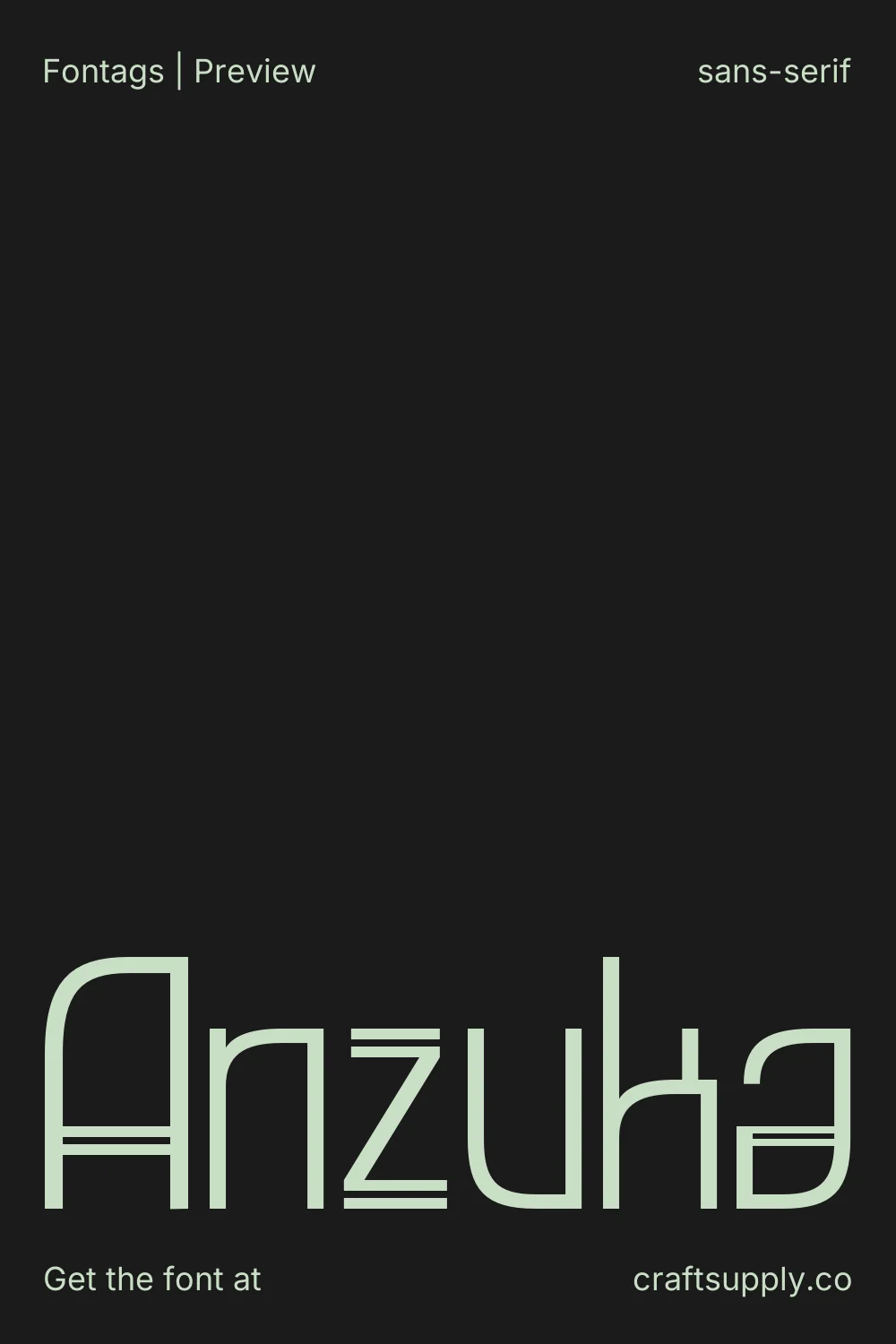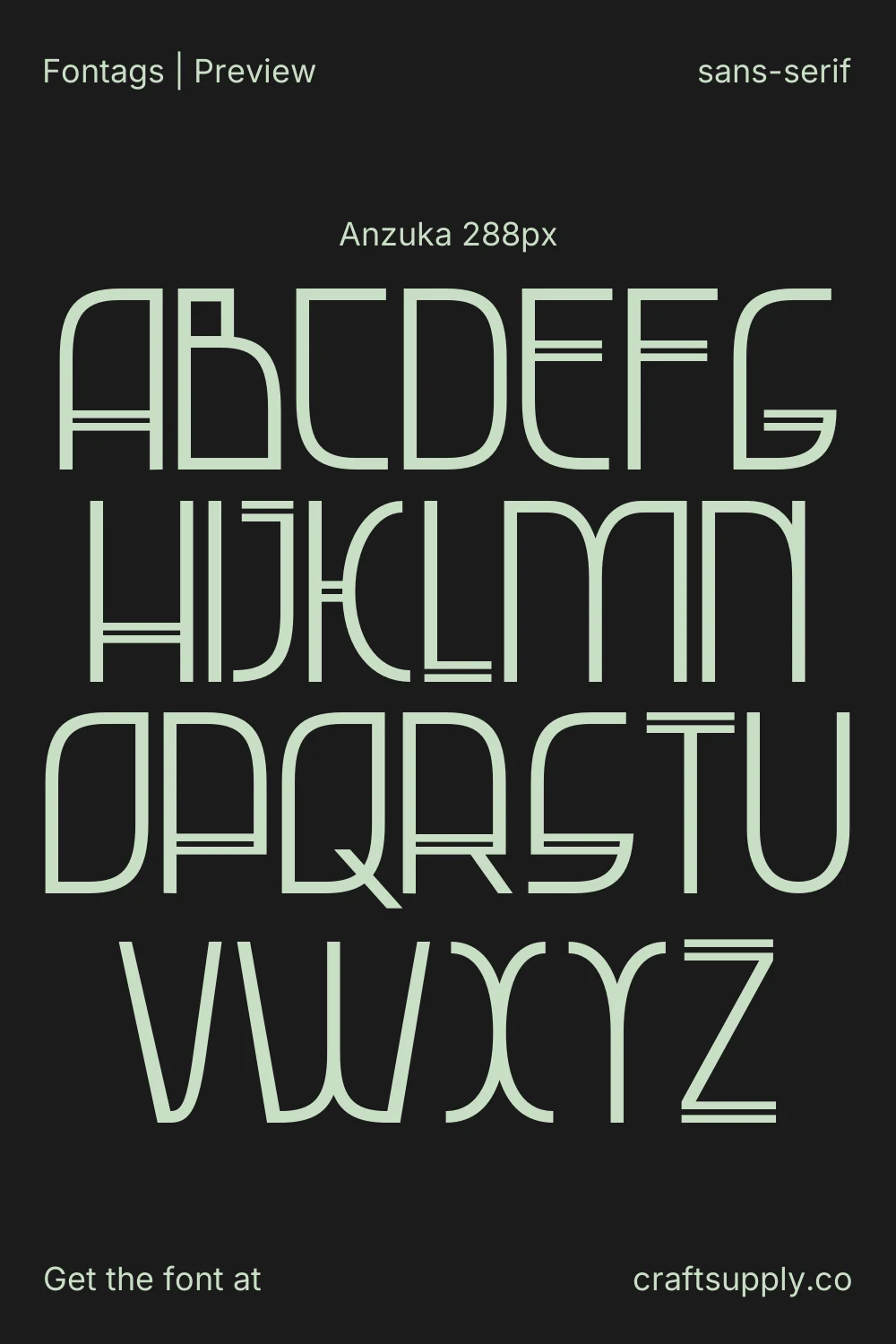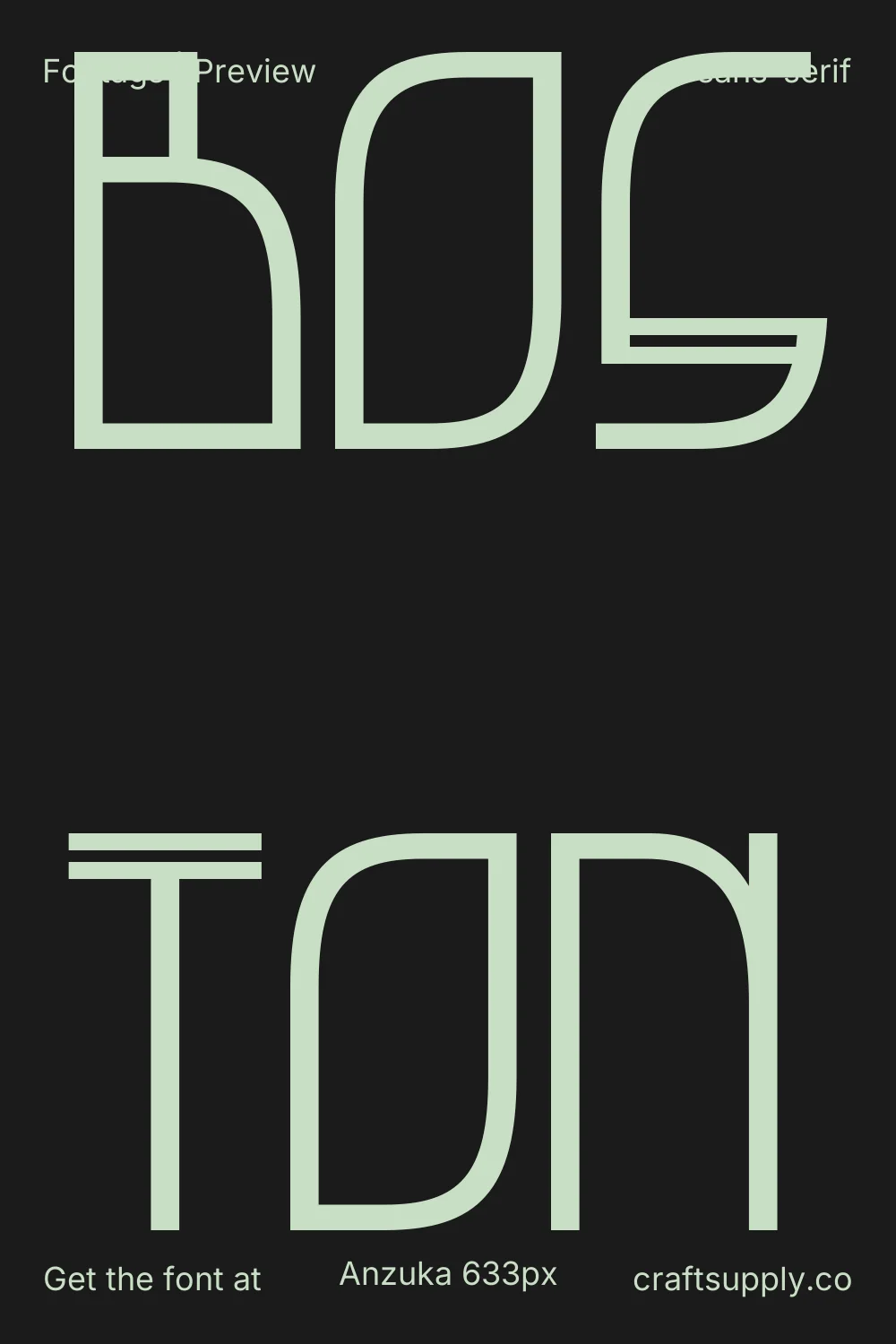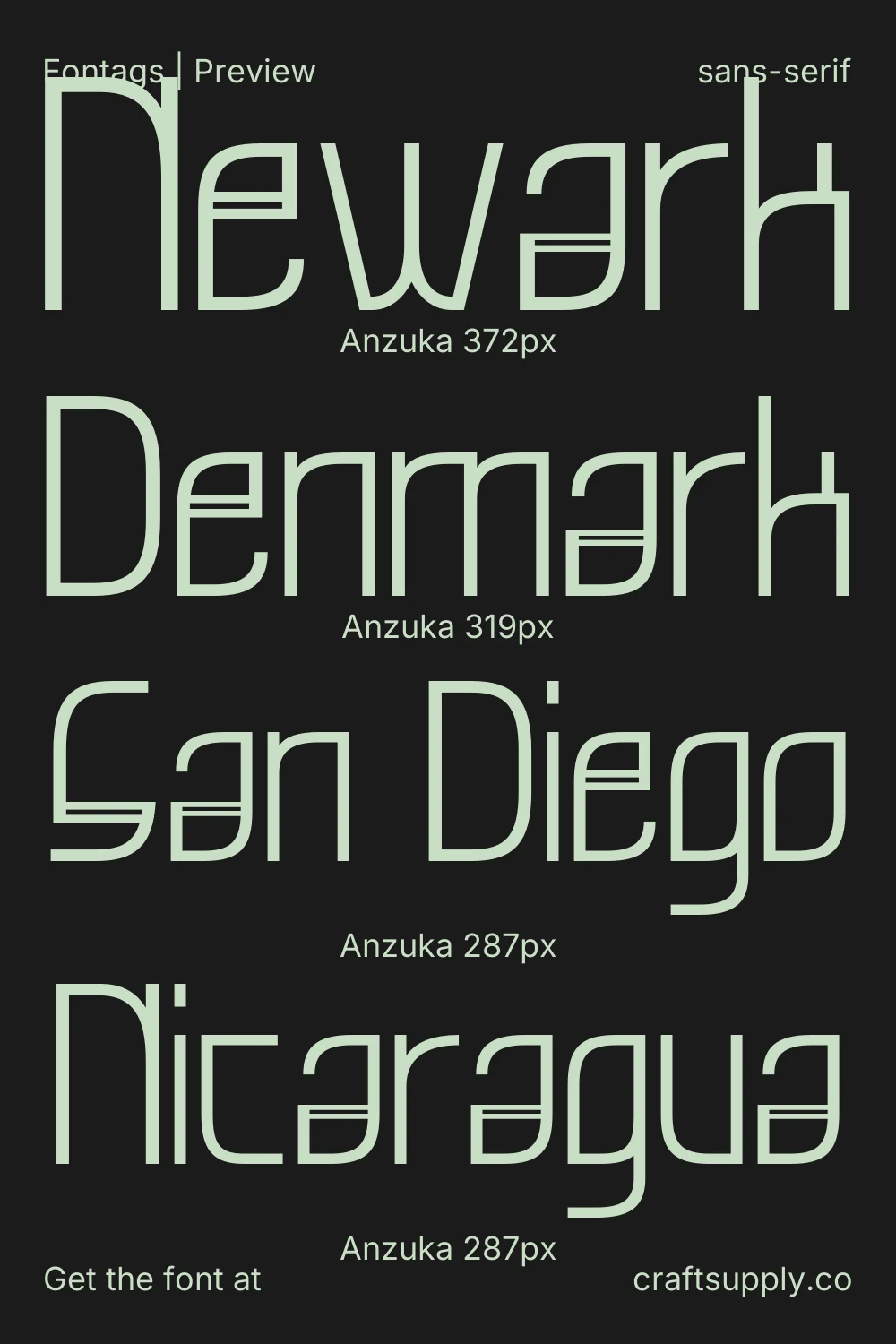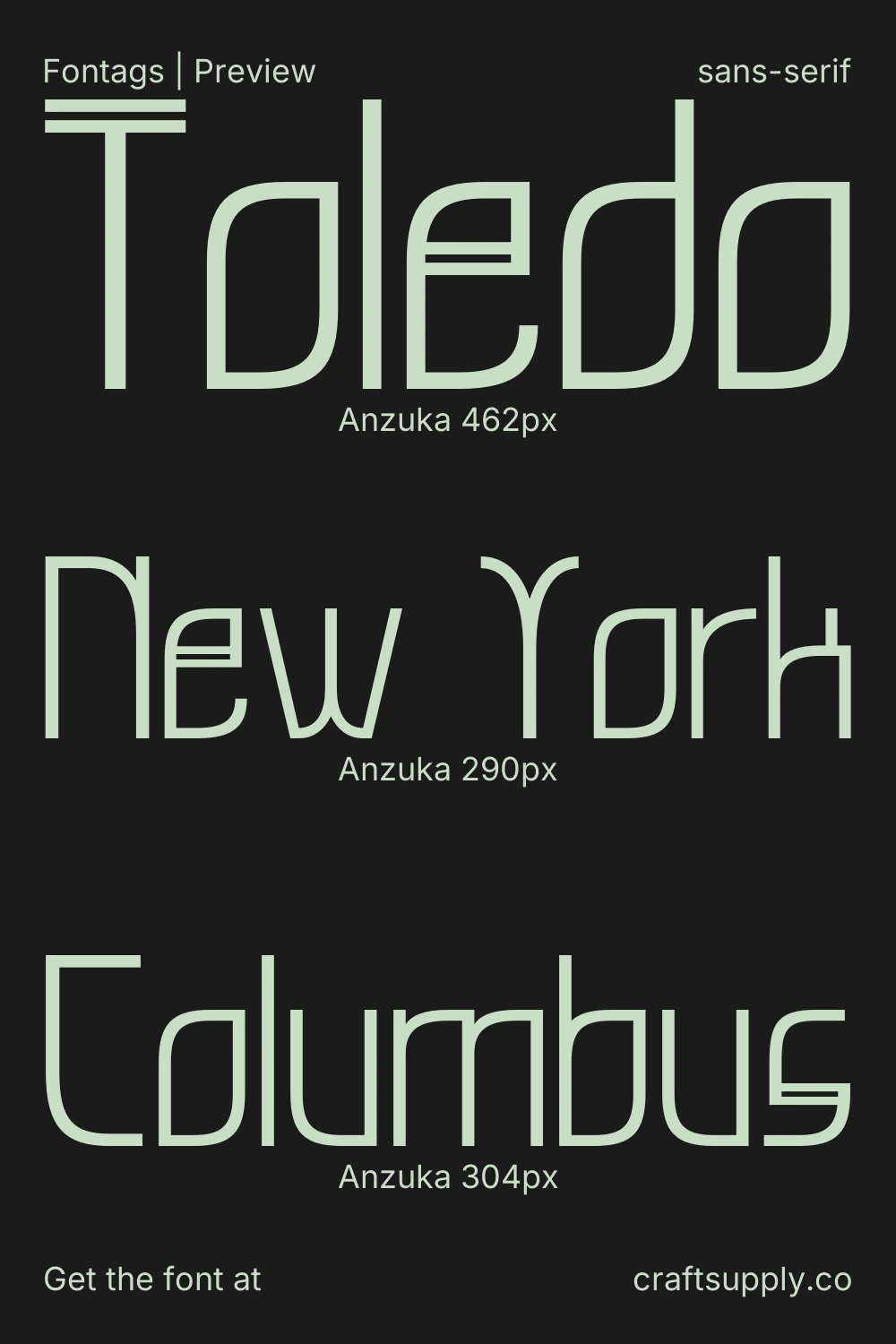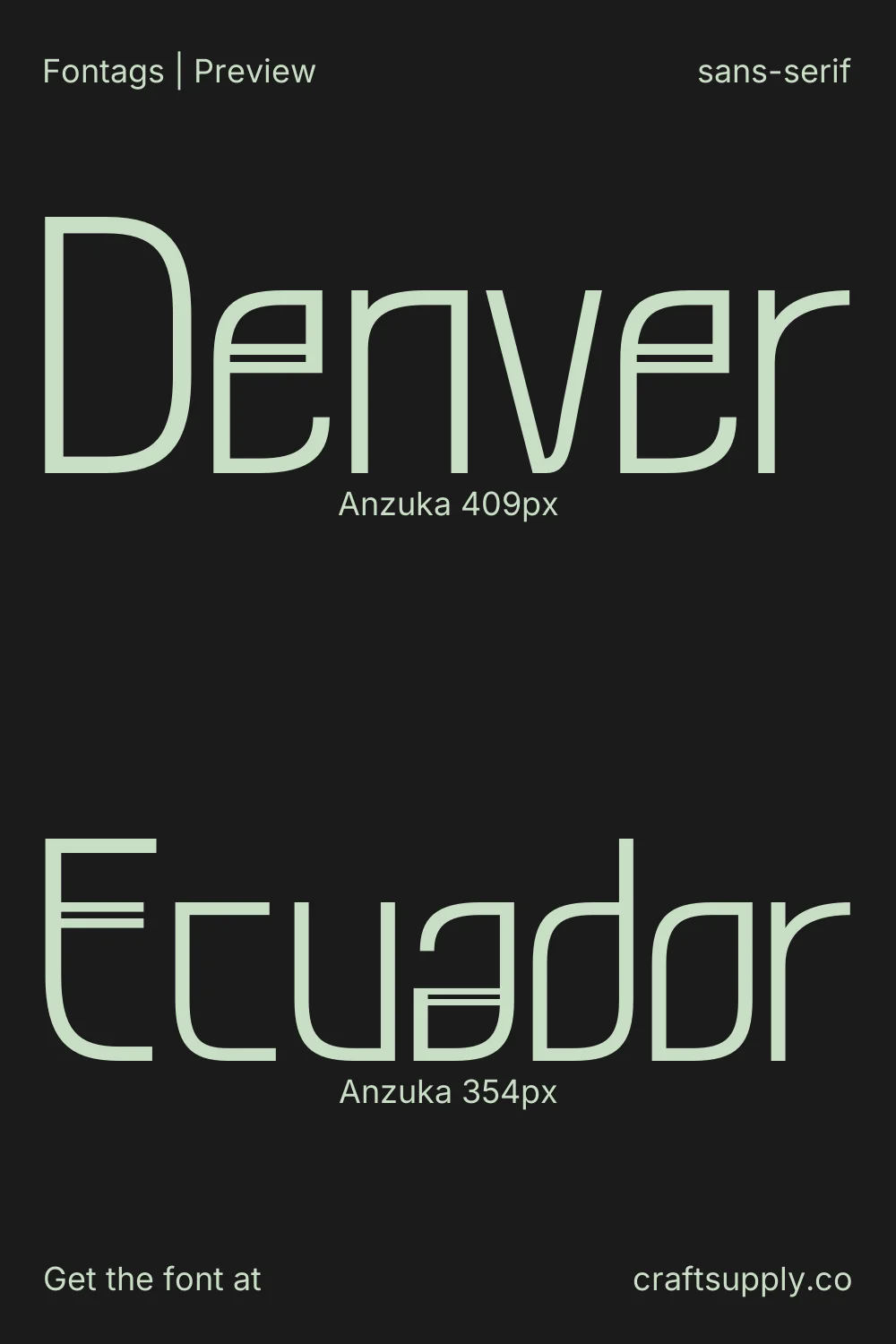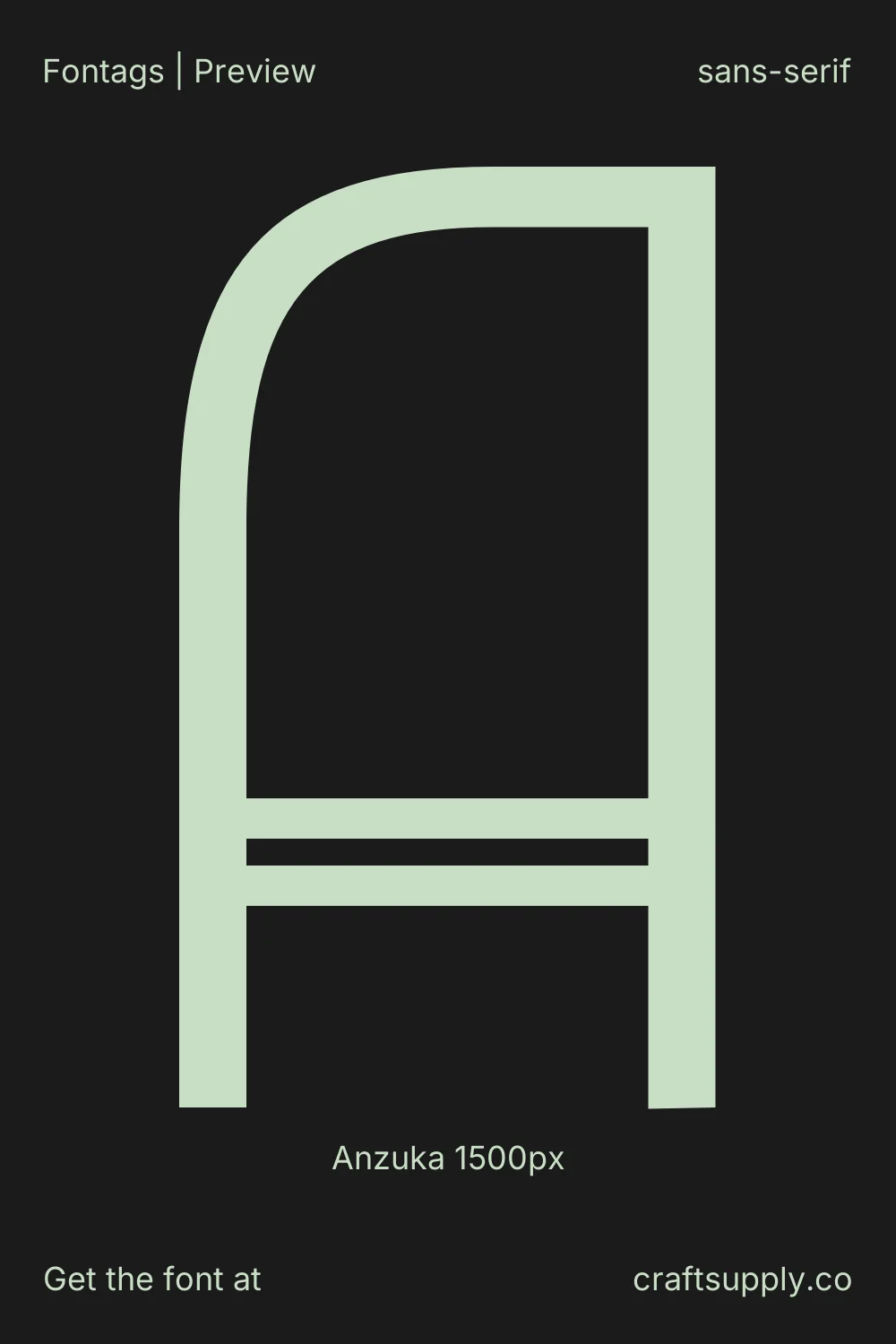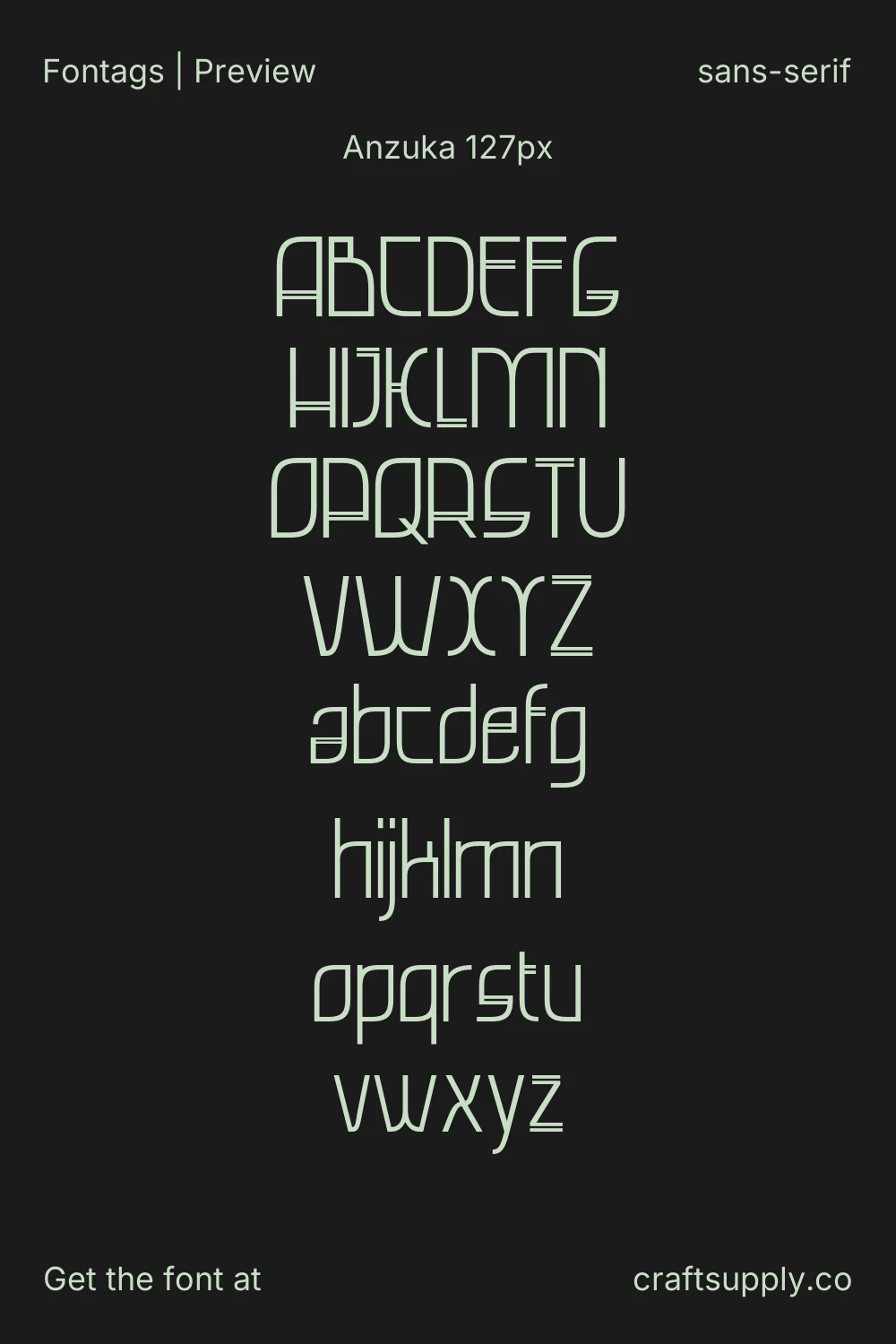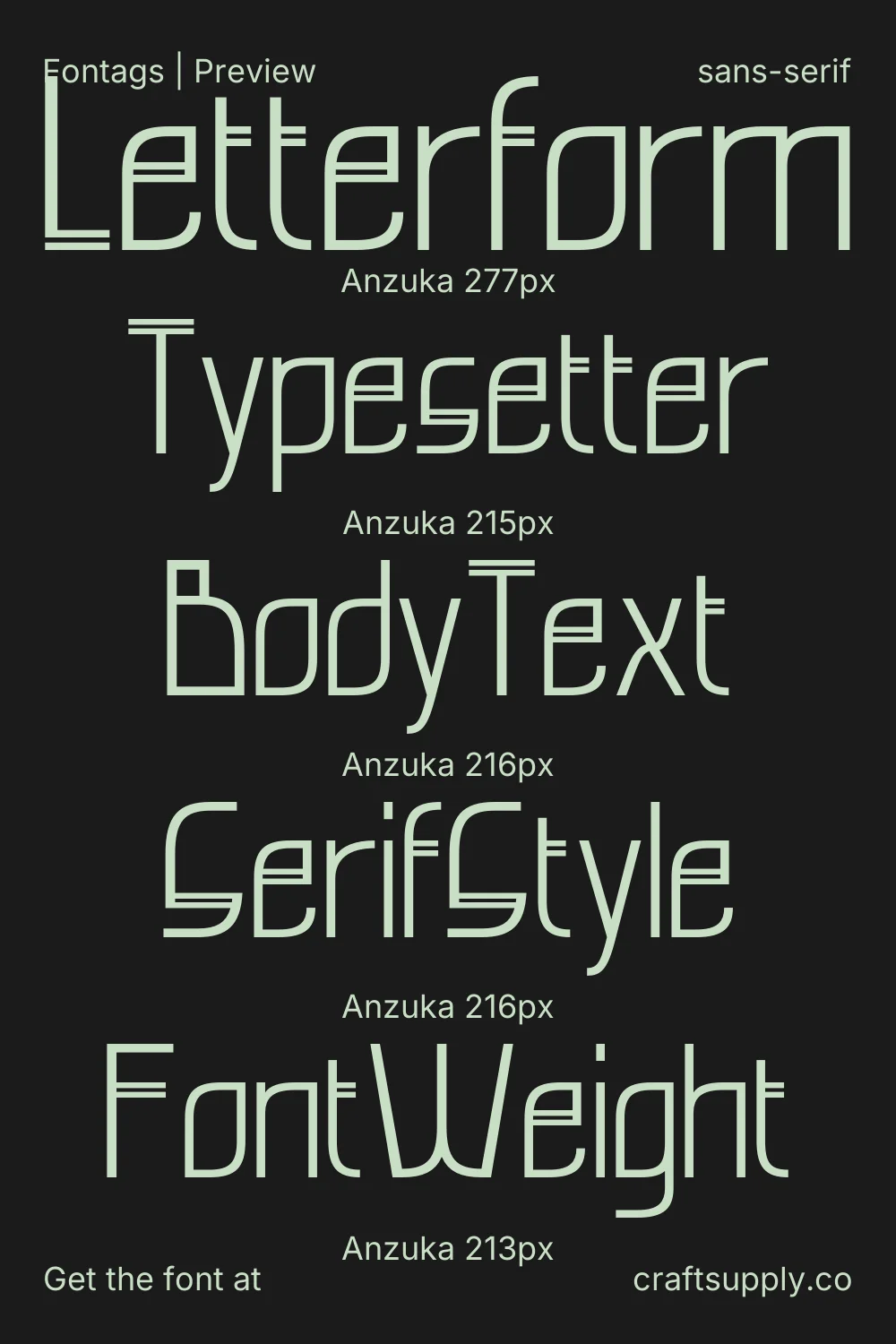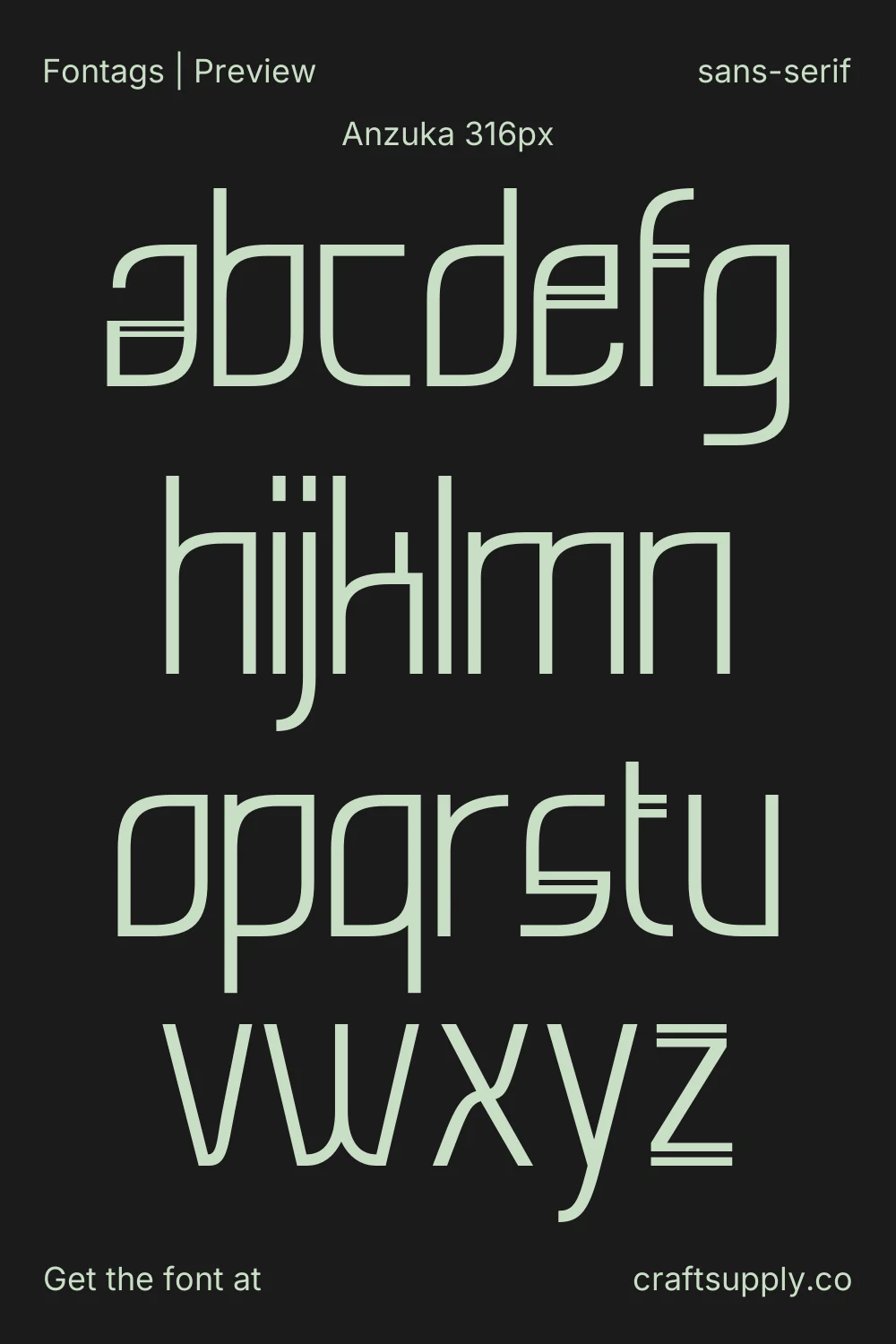
Anzuka
Anzuka is a modern sans-serif font inspired by Art Deco elegance. It blends classic sophistication with contemporary clean lines, making it versatile for corporate branding, editorial design, logos, and premium print or digital projects. Its refined proportions and multilingual support bring a timeless yet fresh feel to any composition.